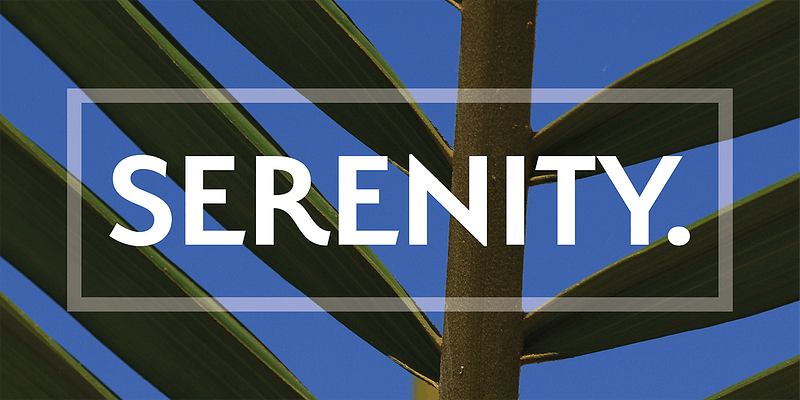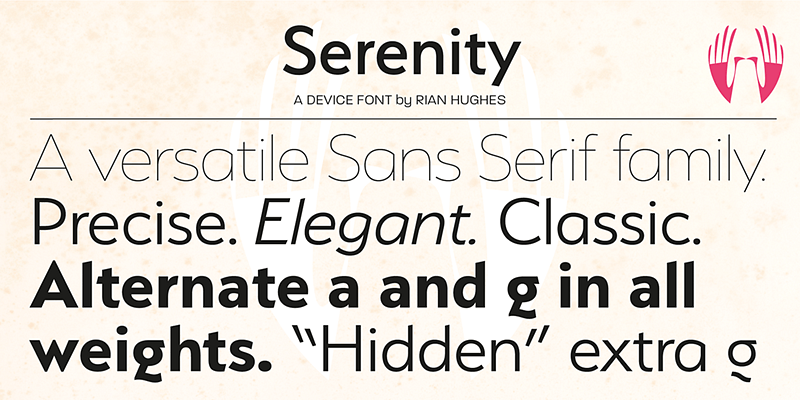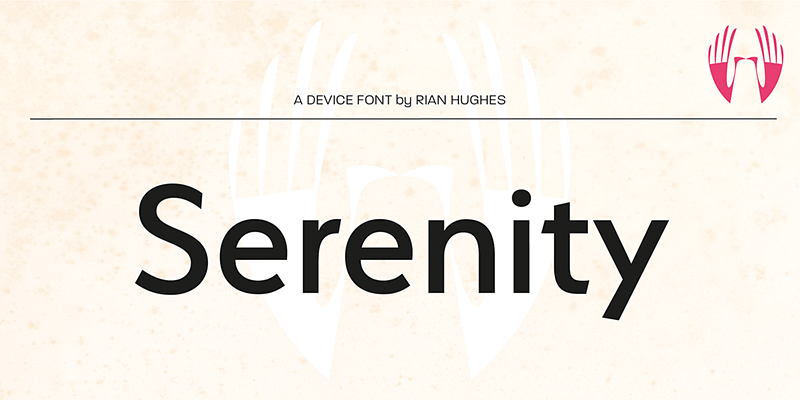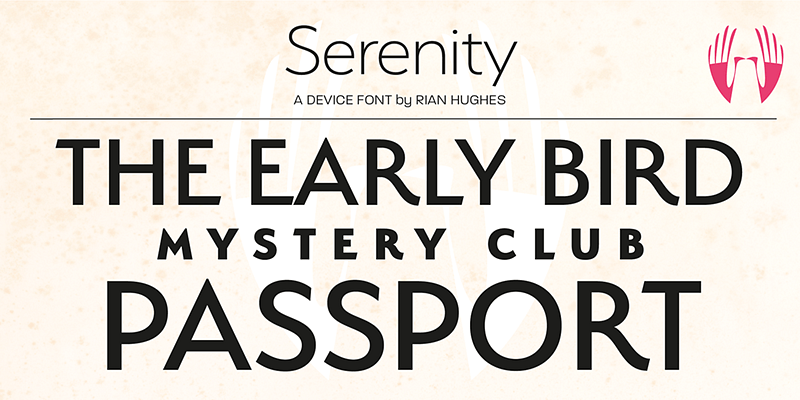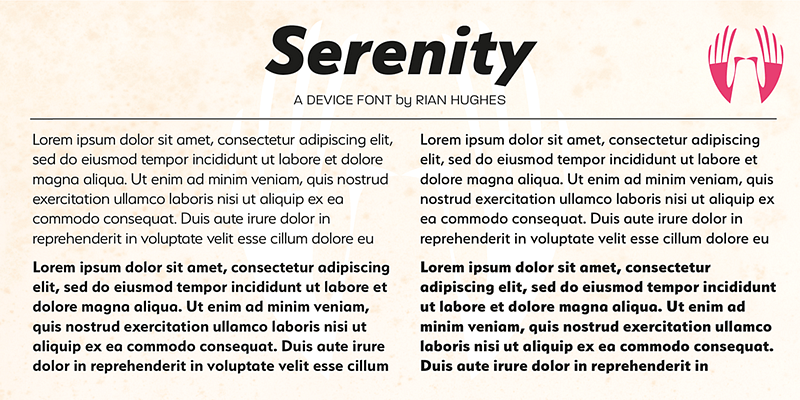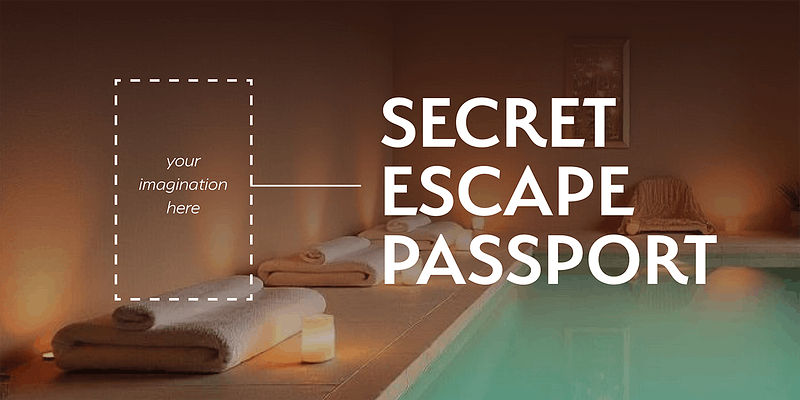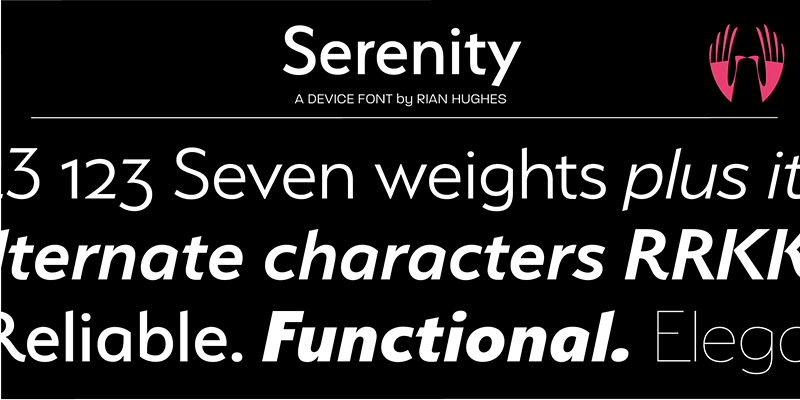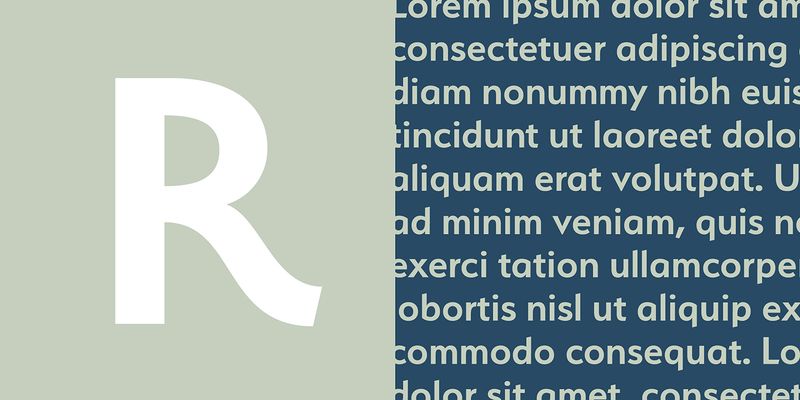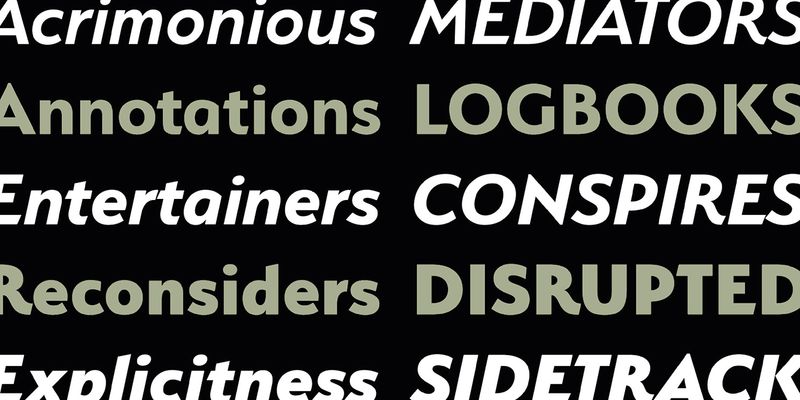
An elegant and refined all-purpose sans-serif. Versatile – suitable for headline as well as text – but with enough character to elevate it above the ordinary.
Type, design and imagery by English illustrator and typographer Rian Hughes.